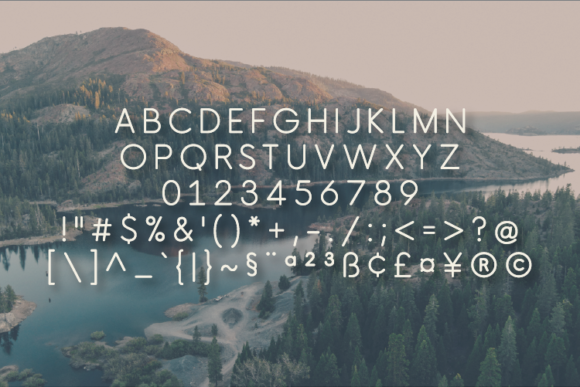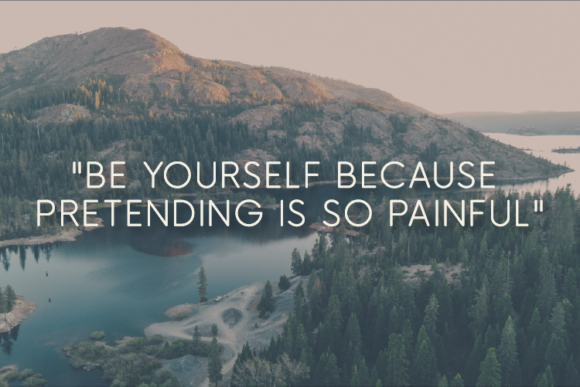
Introducing Blanchord Font: The Ultimate Sans Serif for Creative Projects
Are you tired of using the same old fonts for your design projects? Look no further than Blanchord Font, a minimal and neat sans serif font that’s perfect for adding a touch of modernity to your creative ideas. With its clean lines and simple aesthetic, Blanchord Font is incredibly versatile and can easily be matched to a wide range of projects.
What is Blanchord Font?
Blanchord Font is a sans serif font, which means it doesn’t have the small lines or flourishes that are characteristic of serif fonts. This makes it a great choice for projects where you want a clean and minimalist look. The font has a modern feel to it, making it perfect for designers and crafters who want to add a touch of sophistication to their work.
Key Features of Blanchord Font
- Minimal and neat design: Blanchord Font has a simple and uncluttered design that makes it easy to read and use.
- Sans serif: The font doesn’t have any small lines or flourishes, giving it a clean and modern look.
- Highly versatile: Blanchord Font can be used for a wide range of projects, from branding and advertising to packaging and web design.
- Easily readable: The font is designed to be easy to read, even at small sizes.
How to Use Blanchord Font in Your Projects
Blanchord Font is incredibly easy to use and can be matched to a wide range of projects. Here are a few ideas to get you started:
- Branding and advertising: Use Blanchord Font to create modern and sophisticated branding and advertising materials, such as logos, business cards, and brochures.
- Web design: Blanchord Font is perfect for web design projects, including website headers, body text, and UI elements.
- Packaging design: Use Blanchord Font to create clean and modern packaging designs that stand out on store shelves.
- Social media graphics: Blanchord Font is great for creating social media graphics, such as Facebook and Twitter headers, and Instagram graphics.
Why Choose Blanchord Font?
There are many fonts to choose from, but Blanchord Font stands out for several reasons:
- Unique and modern design: Blanchord Font has a unique and modern design that will make your projects stand out.
- Highly versatile: The font can be used for a wide range of projects, making it a great addition to your font library.
- Easily readable: Blanchord Font is designed to be easy to read, even at small sizes.
- Supports multiple languages: Blanchord Font supports multiple languages, making it a great choice for international projects.
Tips for Using Blanchord Font Effectively
Here are a few tips for using Blanchord Font effectively in your projects:
- Use it as a headline font: Blanchord Font is perfect for headlines and titles, where its modern and sophisticated design can really shine.
- Pair it with other fonts: Blanchord Font can be paired with other fonts to create a unique and interesting look.
- Experiment with different sizes: Blanchord Font looks great at a variety of sizes, from small body text to large headlines.
Blanchord Font is a versatile and modern sans serif font that’s perfect for adding a touch of sophistication to your design projects. With its clean lines and simple aesthetic, Blanchord Font is incredibly versatile and can easily be matched to a wide range of projects. Whether you’re a designer, crafter, or DIY enthusiast, Blanchord Font is a great addition to your font library.